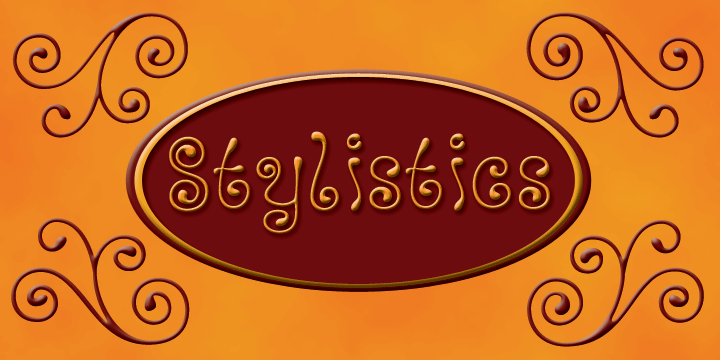
Sugar Medley
Sugar Medley by Scrowleyfonts
Sugar Medley Font Family was designed by Tanya Davis and published by Scrowleyfonts. Sugar Medley contains 1 styles. More about this family
About Sugar Medley Font Family
Sugar Medley was originally inspired by piped icing writing on celebratory cakes. It lends itself to any project requiring a ‘controlled messy’, fun feel. It has a total of 885 glyphs, every letter has 5 alternates to create that hand lettered look. Sugar Medley also includes a full set of stylistic alternates which really goes wild with curls and swirls. These are complemented by a total of 38 ornaments including reflections and rotations.